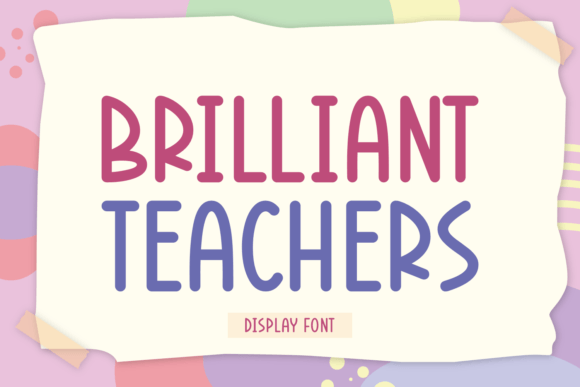
Where Creativity Meets Joy: Unveiling the Brilliant Teachers Font Who hasn’t scribbled heartfelt notes to a favorite teacher or scribbled sweet messages on a homemade card? For designers and creatives, capturing that same sense of warmth and playfulness is a key to making any project truly special. And that’s exactly what the Brilliant Teachers Font…